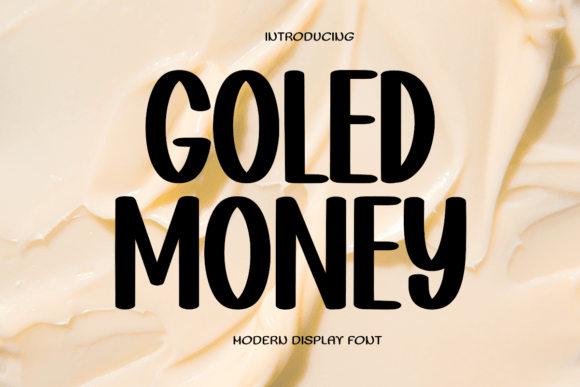
Discover the Perfect Blend of Elegance and Playfulness
Have you ever been working on a project, and then – BAM! – the perfect font pops up in your design software, and you know instantly that it’s going to take your project to the next level? That’s exactly what happened to many designers when they stumbled upon the Goled Money Font.
This cute and playful display font is not only a delight to the eyes but also offers a touch of elegance that’s perfect for a wide range of projects. Whether you’re creating a logo, a social media graphic, or a marketing campaign, the Goled Money Font is sure to make your designs stand out from the crowd.
As a designer, you know how hard it can be to find the perfect font that captures the essence of your project. That’s why we’re excited to share the Goled Money Font with you – it’s a game-changer that will add a new level of sophistication and charm to your designs.
Key Features of Gold Money Font
- Unique Characteristics: The font features a unique, modern design with a luxurious feel, making it ideal for use in high-end branding, packaging, and advertising applications.
Designer Review: Goled Money Font
Goled Money Font is an intriguing addition to the world of typography. The font’s design is bold, eye-catching, and perfect for grabbing attention. ✨ I particularly appreciate its unique blend of modern and vintage elements, which sets it apart from more generic fonts.
- Goled Money Font’s bold style works well for headings, titles, and other high-impact text.
- The font’s legibility is excellent, even at smaller font sizes.
- It’s an excellent choice for creating a distinctive brand identity.
- The font may be too flashy for more subtle designs or corporate materials.
- It’s not ideal for large blocks of text, as the bold style can be overwhelming.
- The font’s vintage elements may not appeal to everyone’s taste.
Overall, Goled Money Font is a solid choice for designers looking to add some excitement to their projects. While it may not be suitable for every design, its unique style and excellent legibility make it a great option for those who want to make a statement.
Tips for Getting the Most Out of Goled Money Font
Use Goled Money Font to create eye-catching headlines, titles, and labels that add a touch of sophistication to your designs.
Combine Goled Money Font with other fonts to create a unique and visually appealing typography style.
Experiment with different font sizes, colors, and styles to achieve the desired effect.
Goled Money Font is ideal for:
Financial and business-related designs, such as logos, brochures, and reports.
Designs that require a sense of luxury and